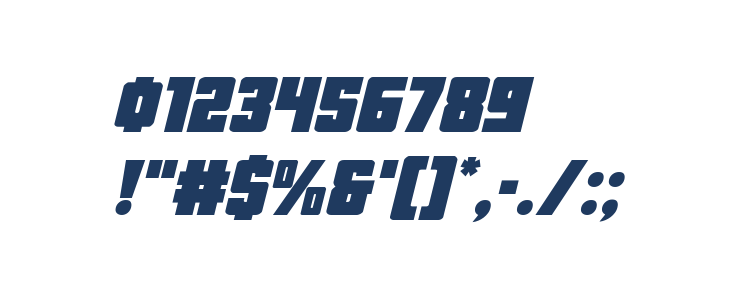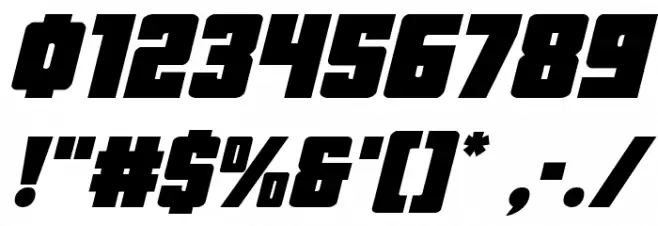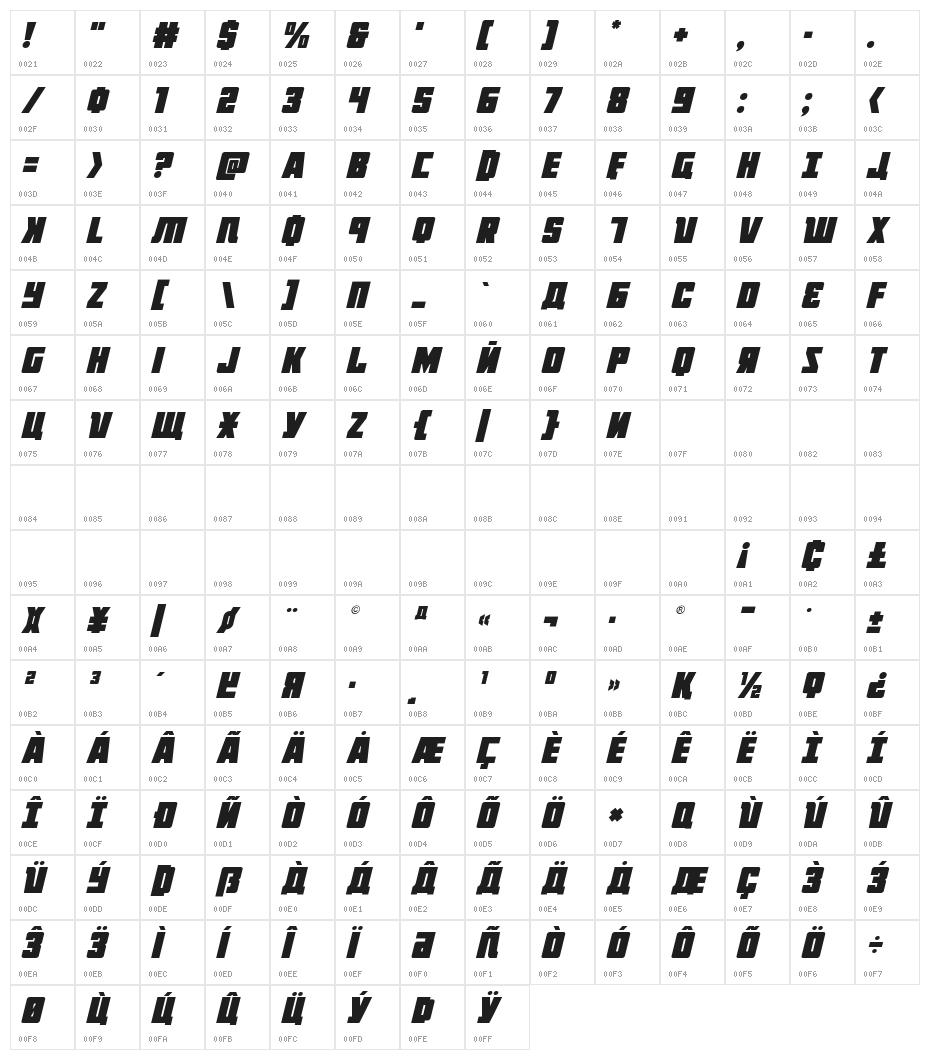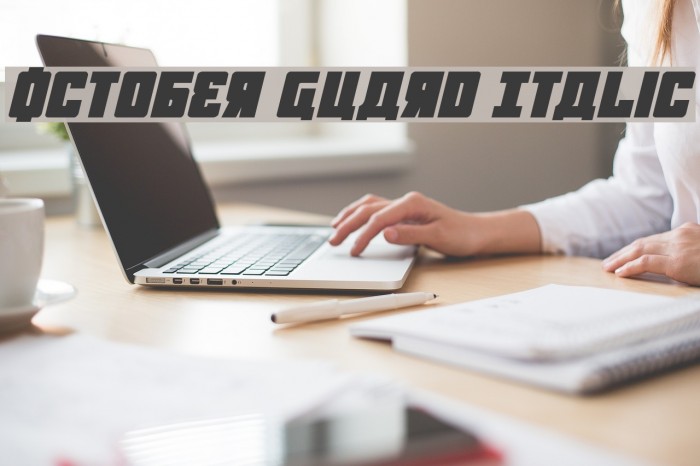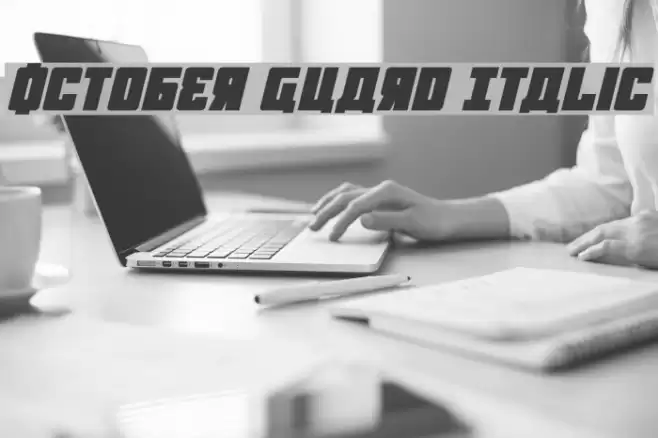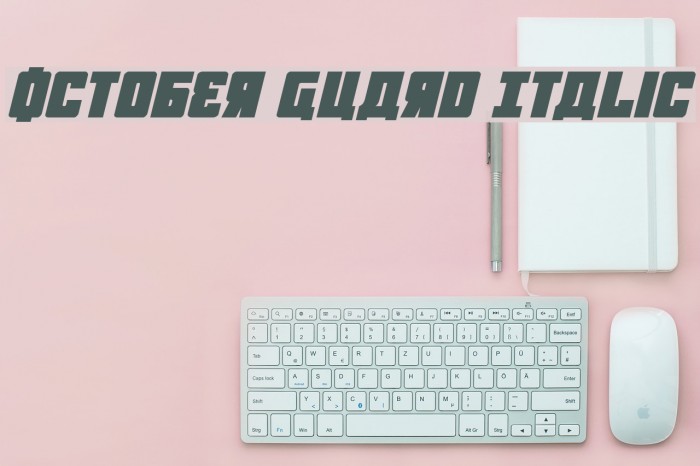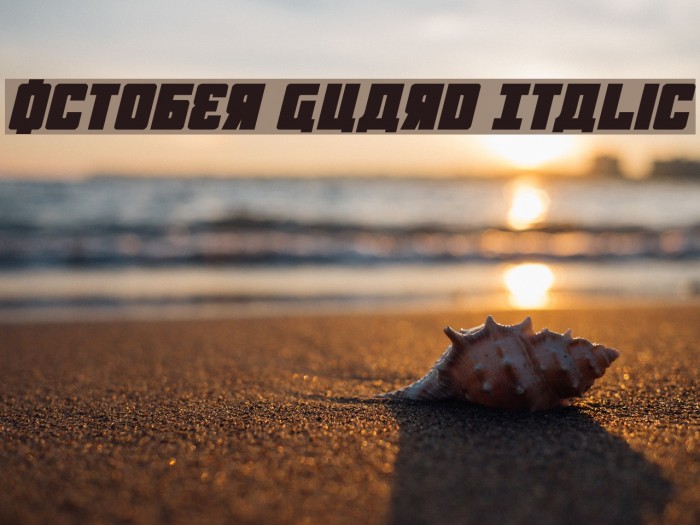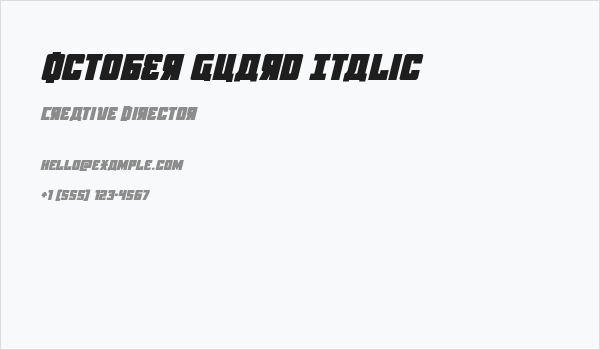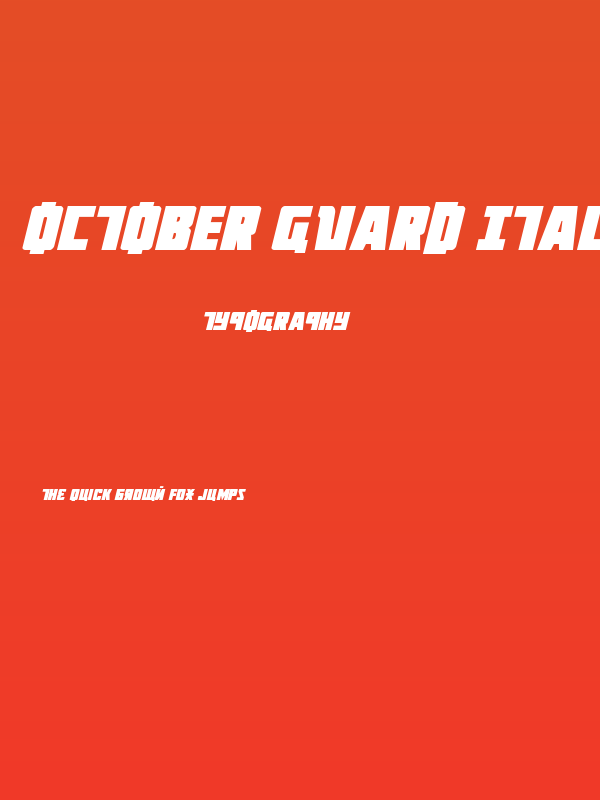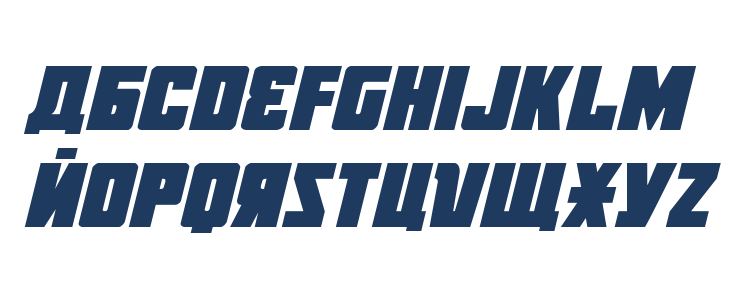
October Guard Italic Font
October Guard Italic Description
This font features a bold and dynamic style with a strong presence. The characters are italicized, giving them a forward-leaning, energetic appearance. The strokes are thick and uniform, contributing to a robust and impactful look. The design incorporates sharp angles and geometric shapes, which enhance its modern and aggressive aesthetic. The uppercase and lowercase letters maintain a consistent style, while the numerals and special characters are designed to match the overall boldness. This font is ideal for projects that require a commanding and assertive visual impact.